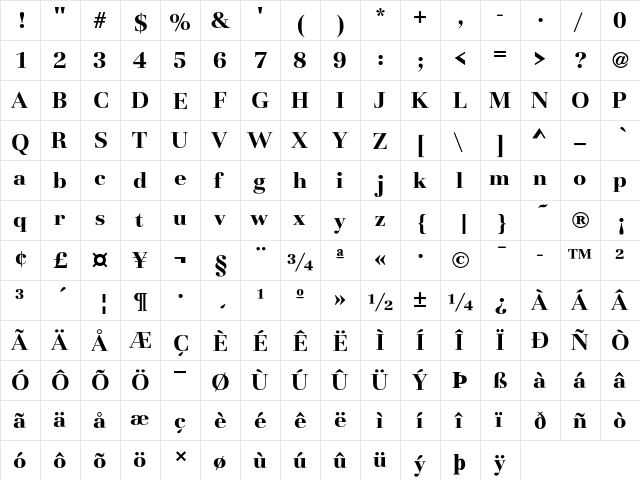
Basilia T Bold
Design Context for Basilia T Typeface
Basilia T takes a measured approach to typography — its balanced proportions and neutral character make it a reliable workhorse for both digital and print work. Its bold stroke weight gives it real presence on the page.